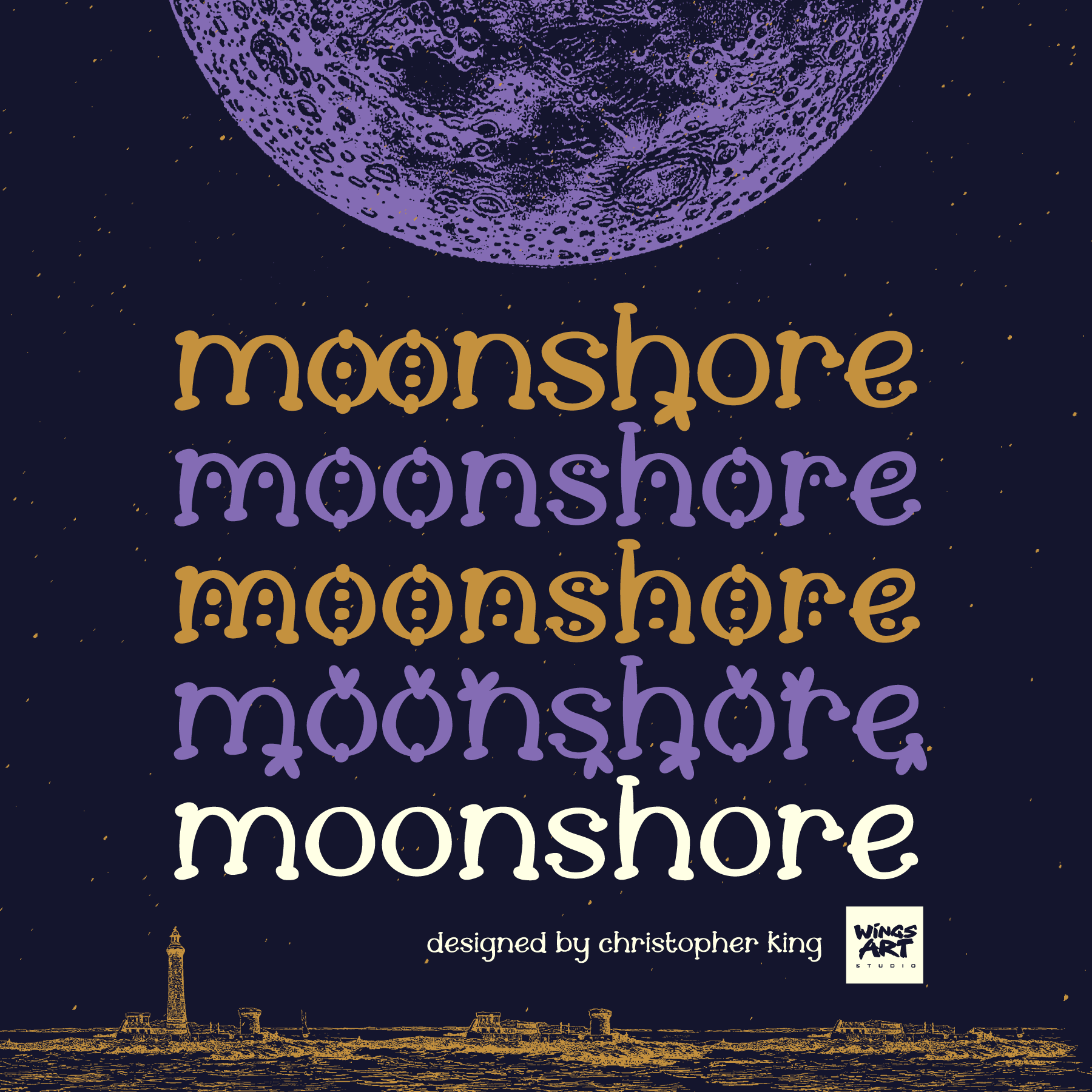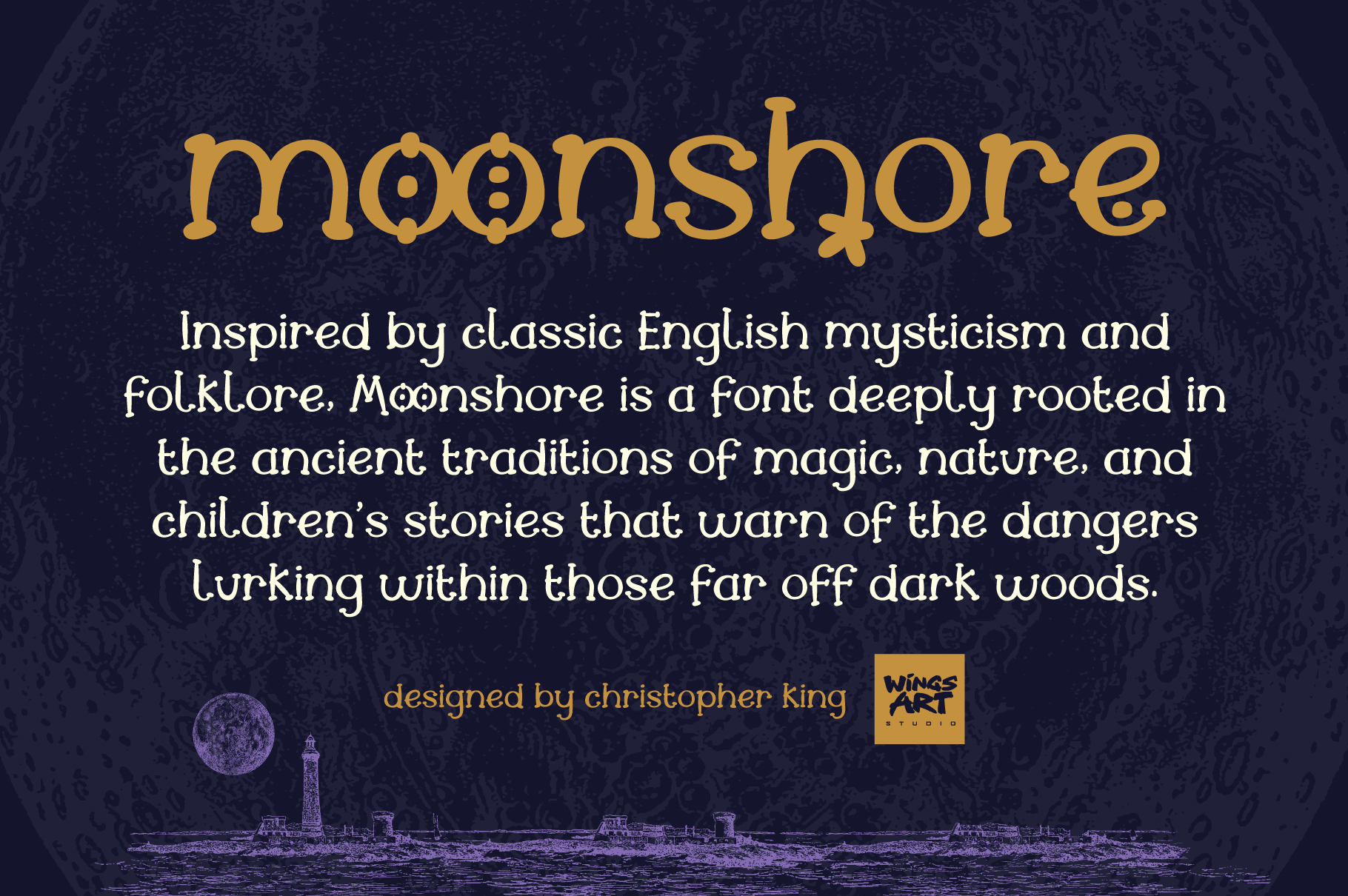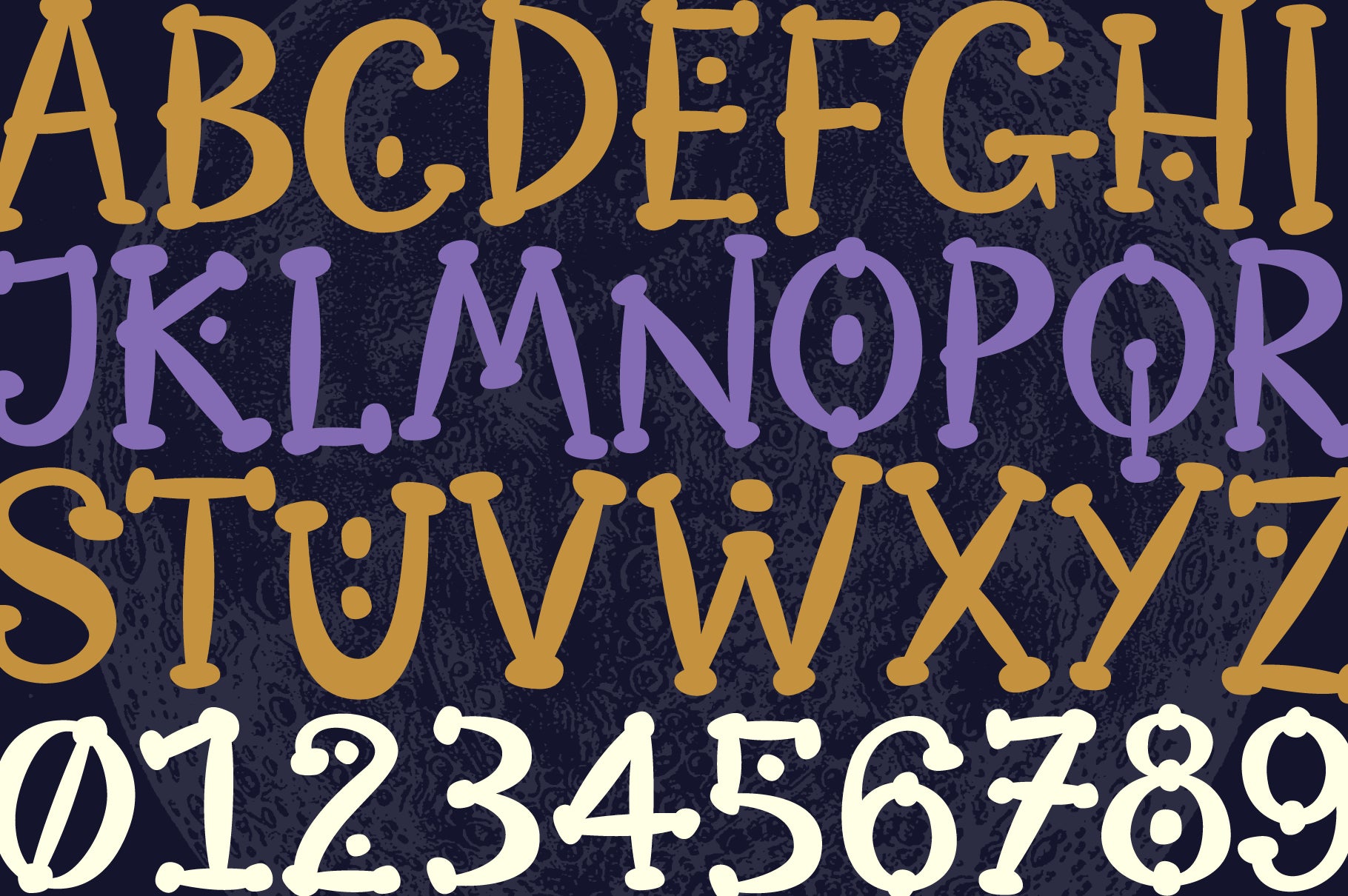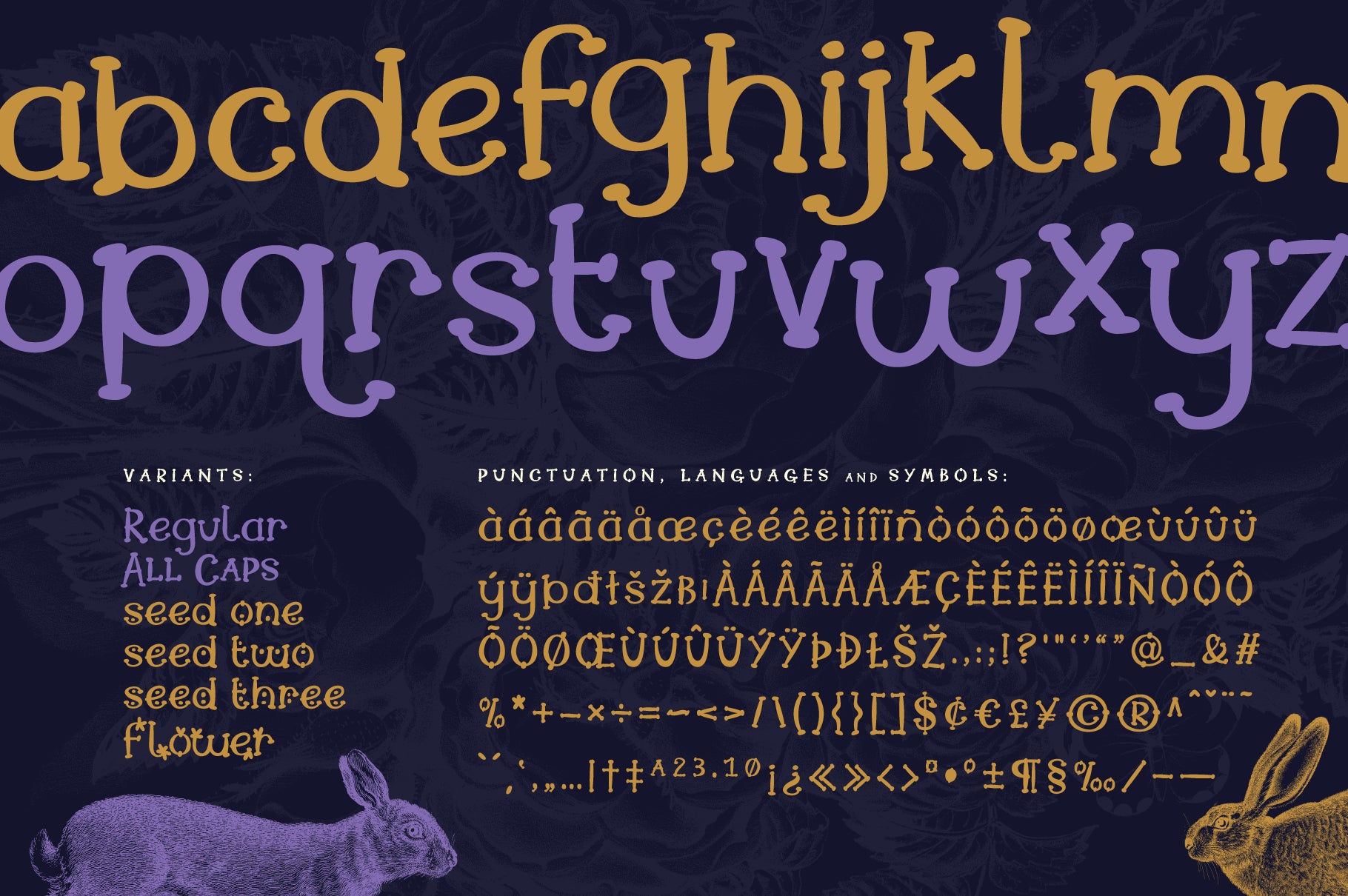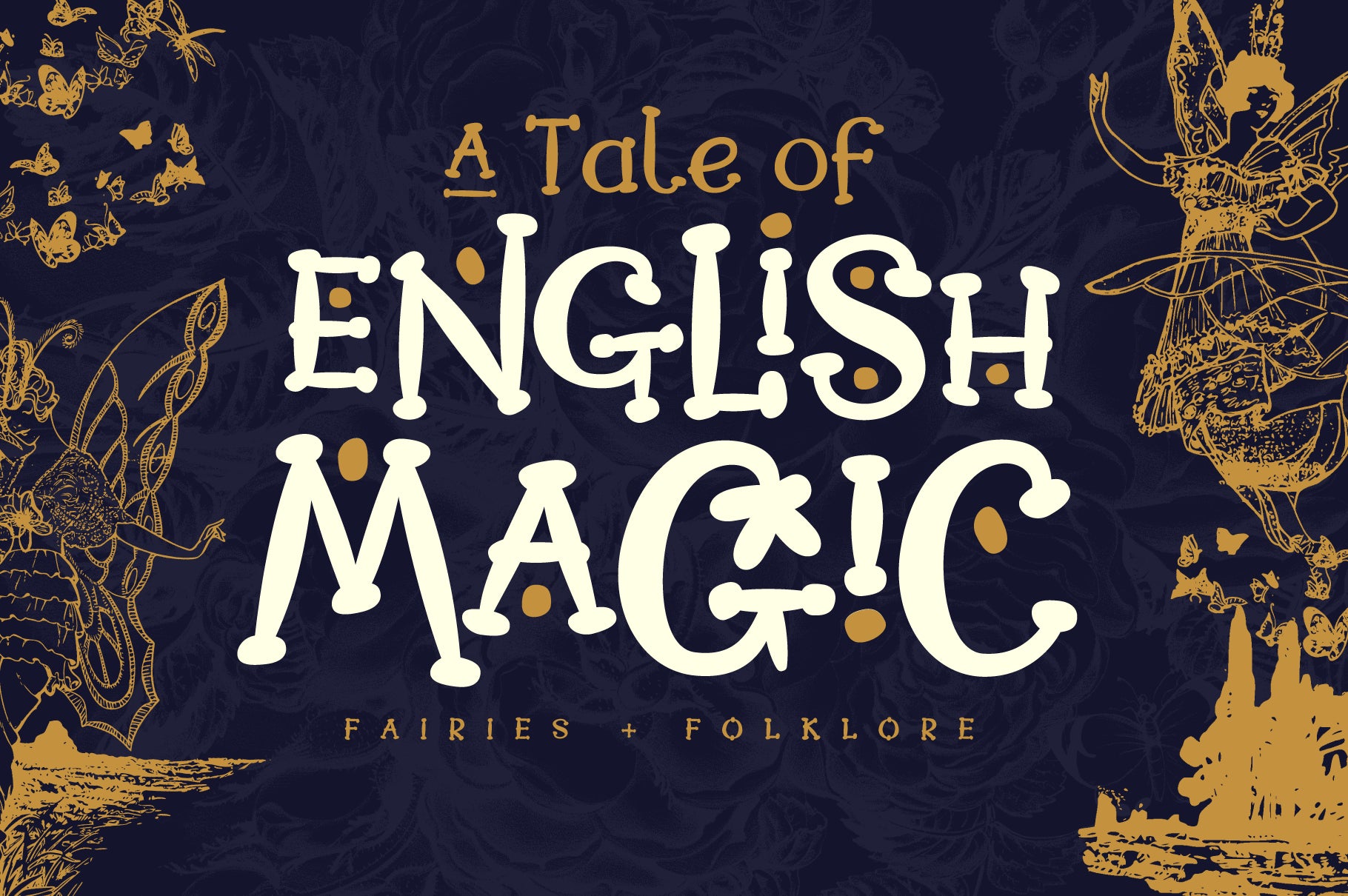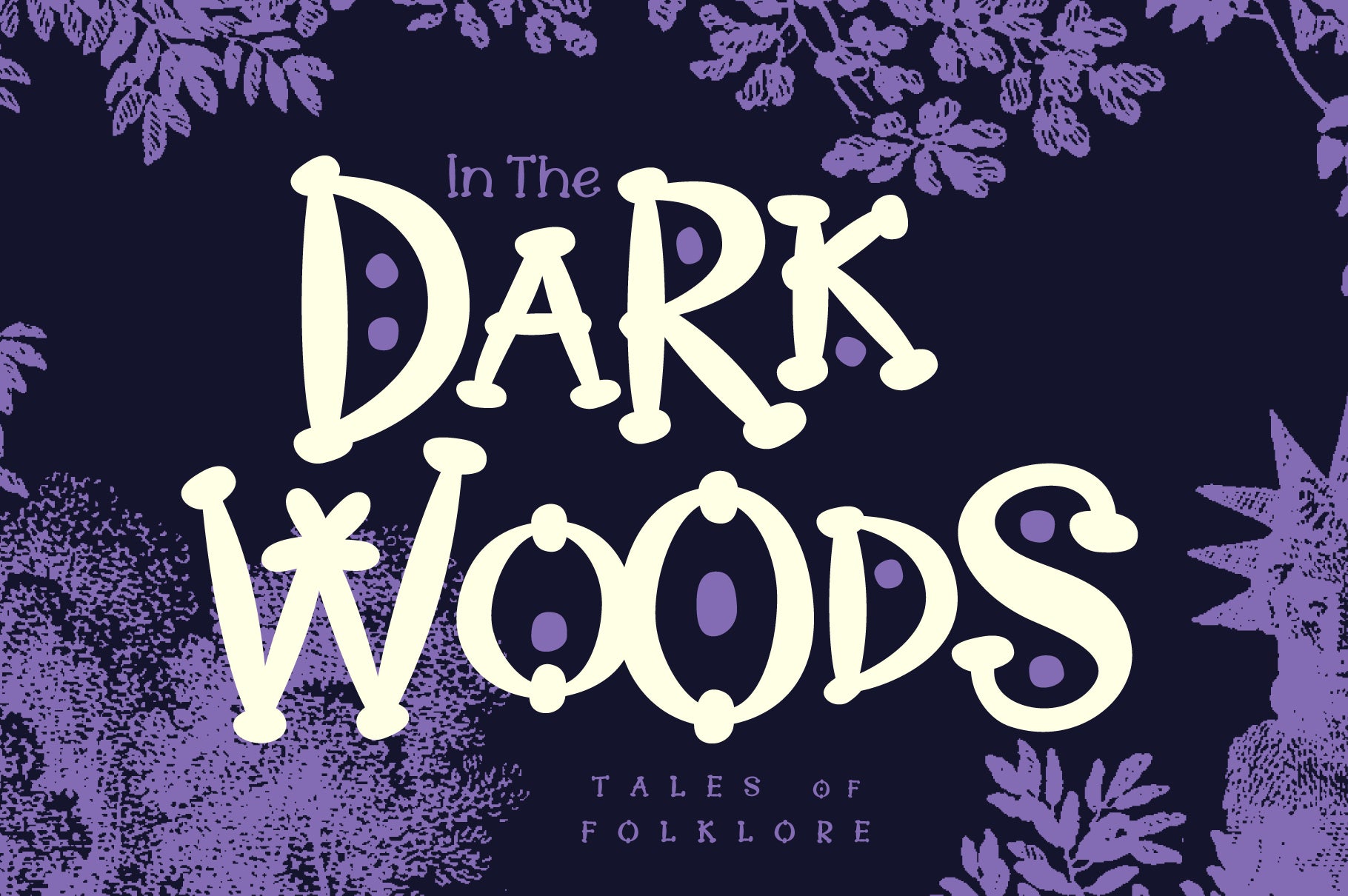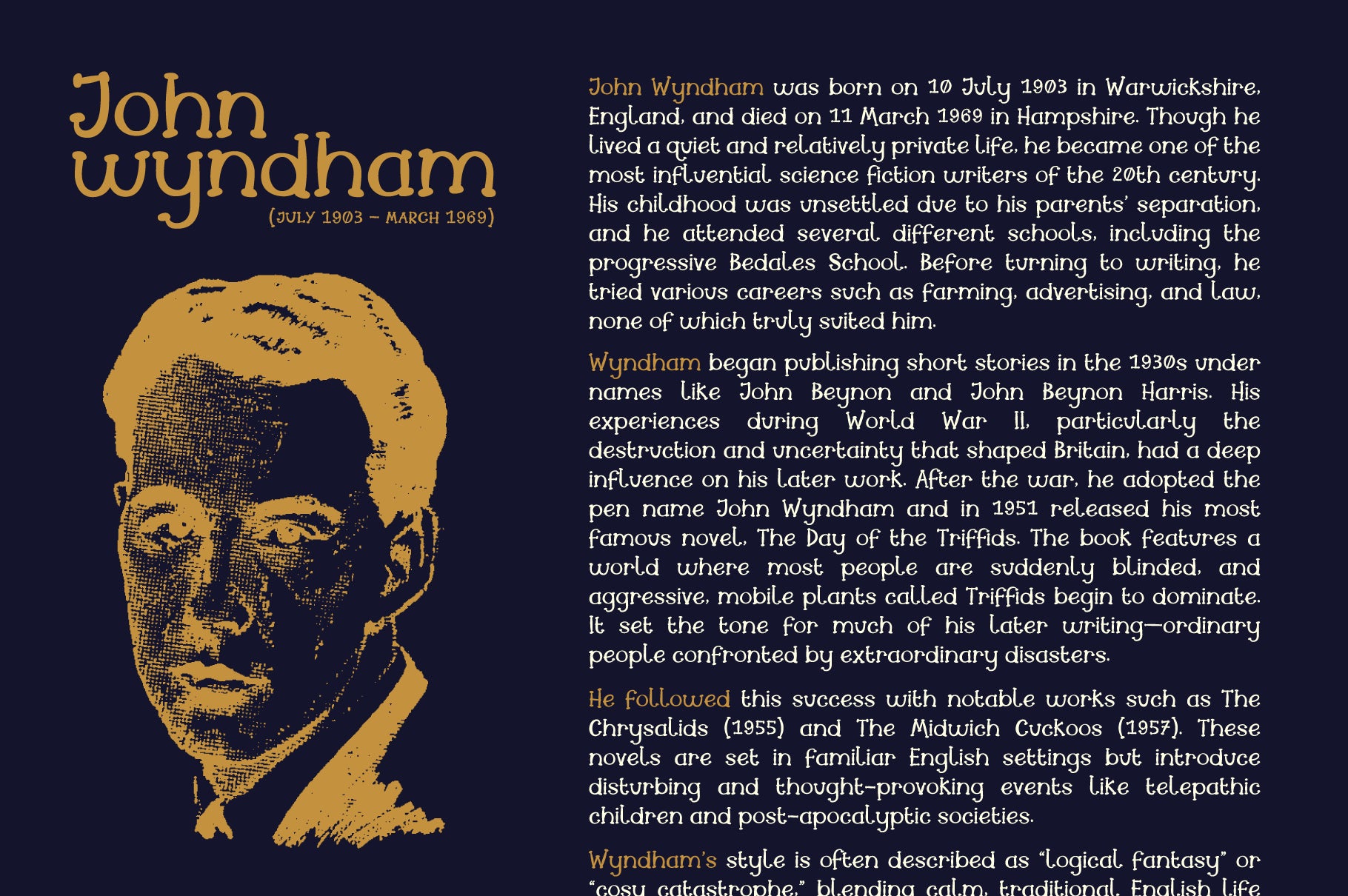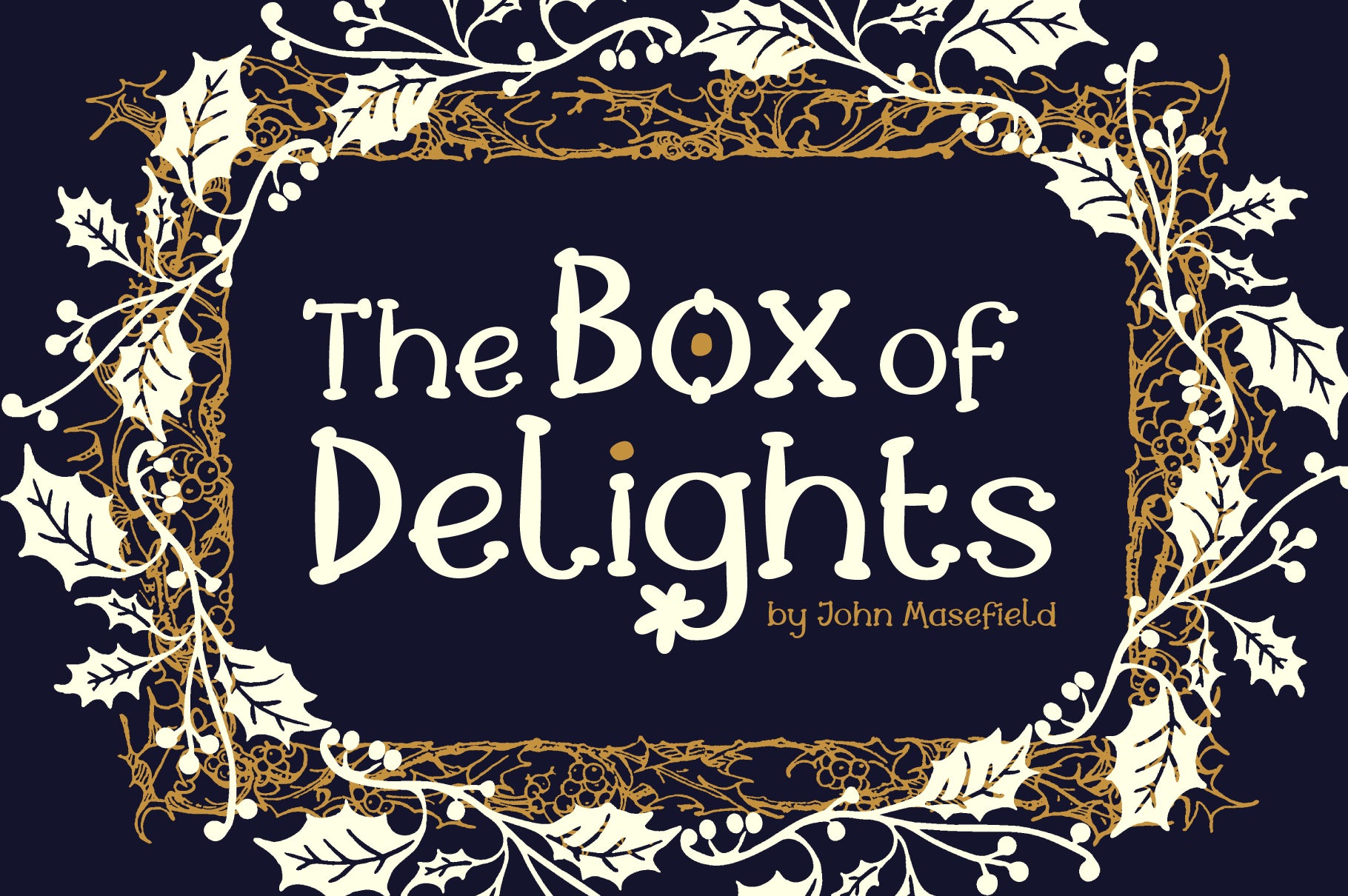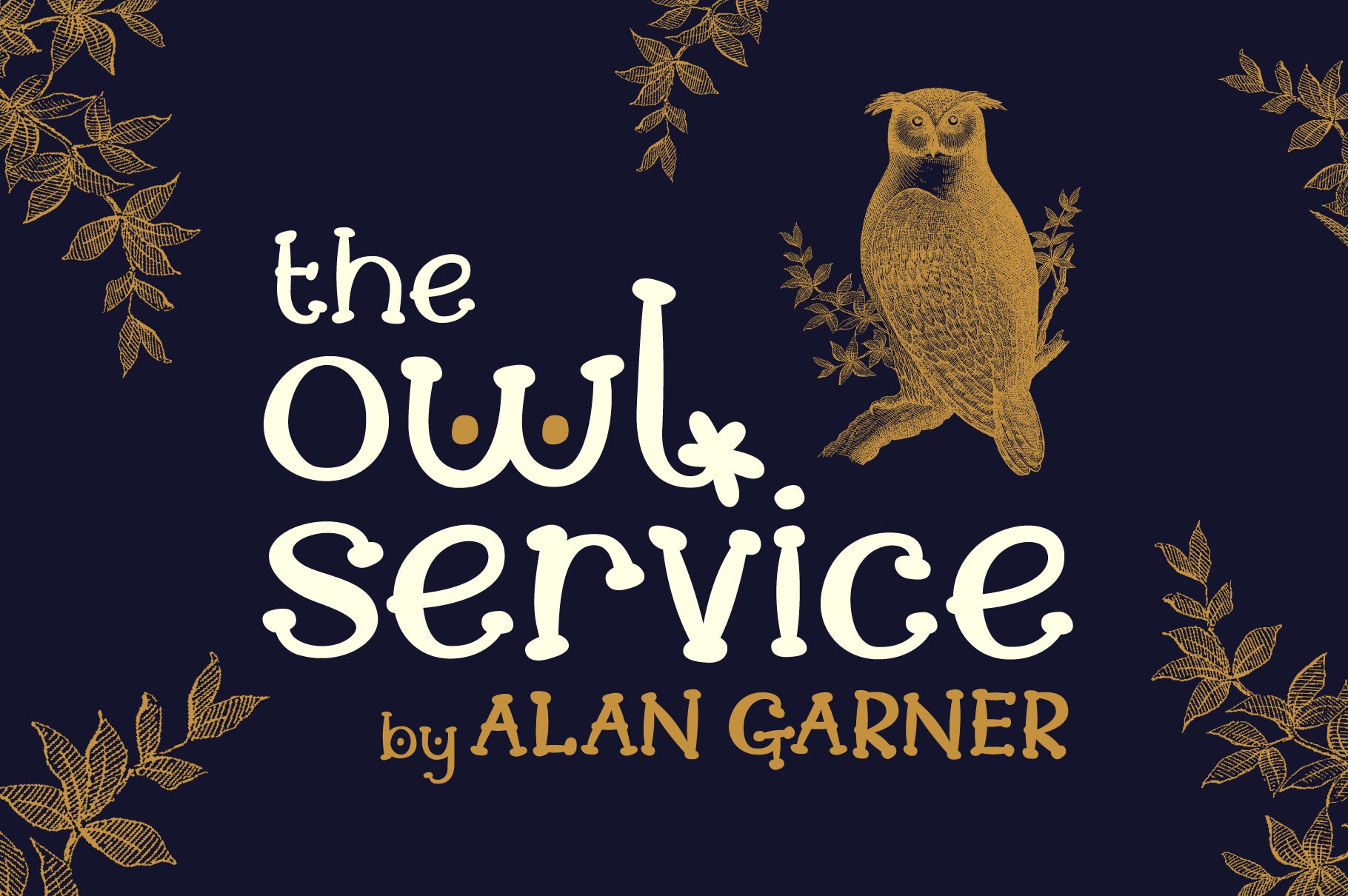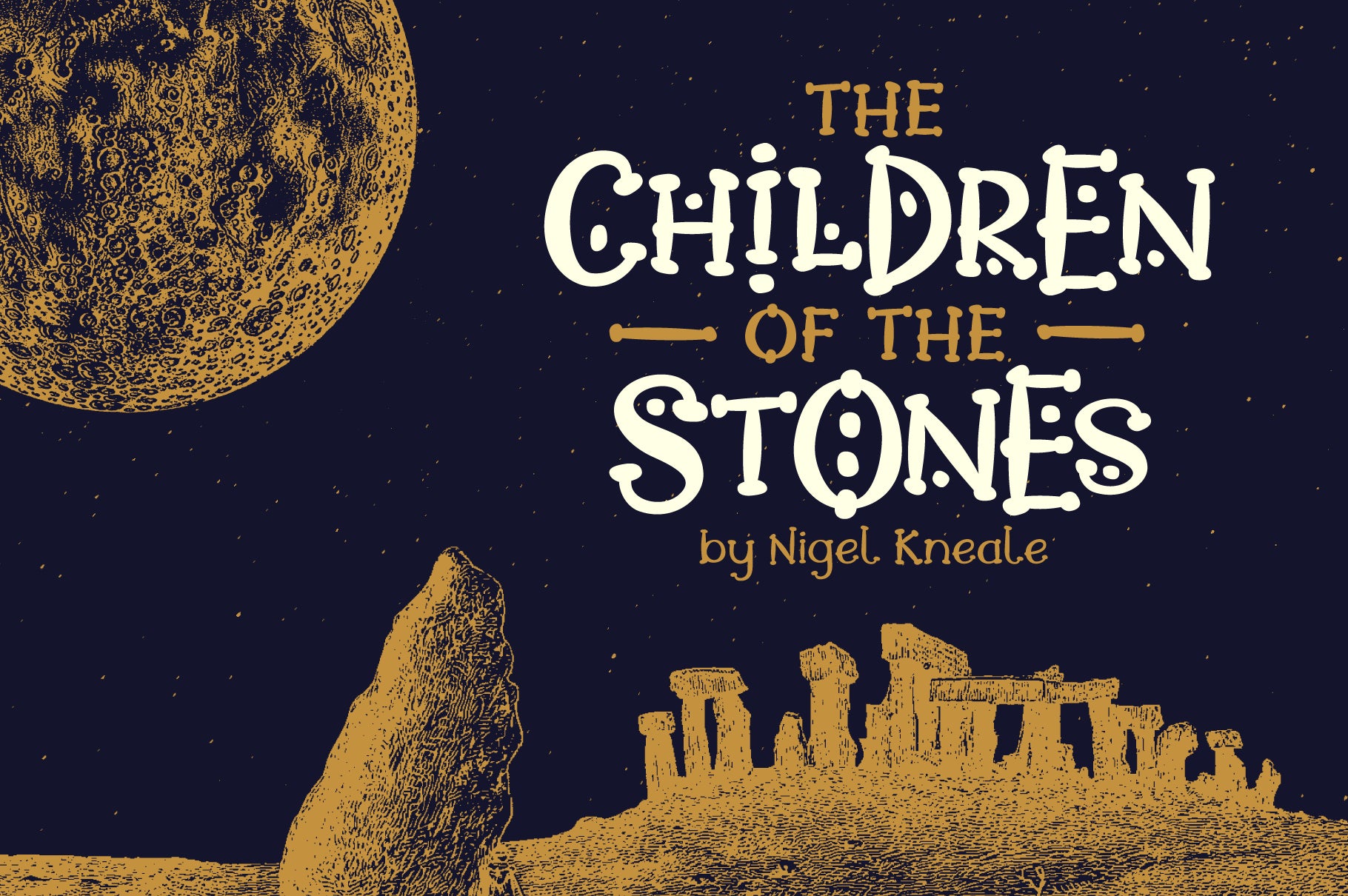
Moonshore - A Magical Folklore and Fantasy Font
Moonshore is a folklore and fantasy font inspired by classic English mysticism, featuring eight styles that include a complete uppercase and lowercase alphabet, numerals, punctuation, and language support. The font family consists of Regular, All Caps, and decorative variants known as 'Seeds' and 'Flower,' available in OTF, TTF, and WOFF formats.
Christopher King (aka Wingsart Studio) is a graphic font designer with a background in publishing, TV, and film. His work leans towards a hand-drawn look that's particularly suited to headers and titles, already used by global brands such as Disney, Apple, and Marvel.